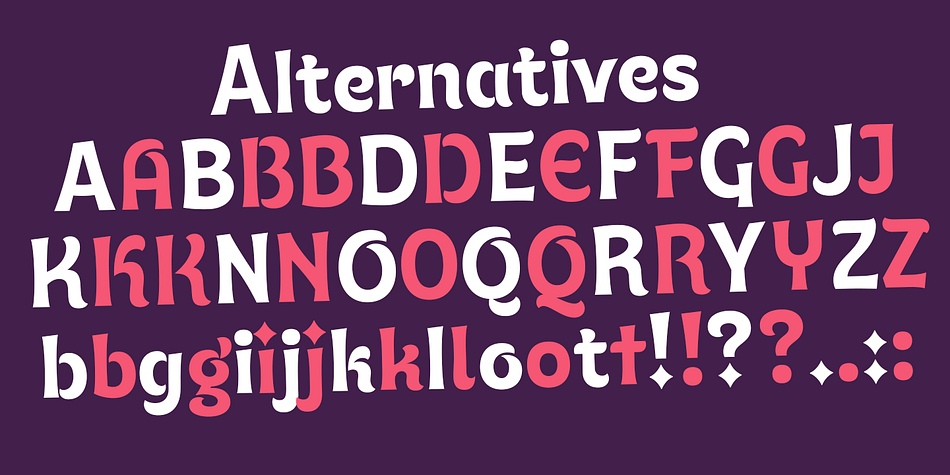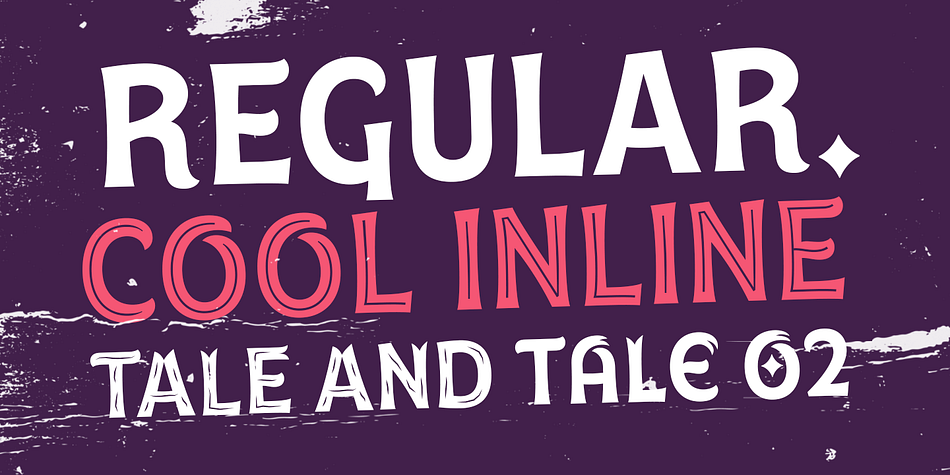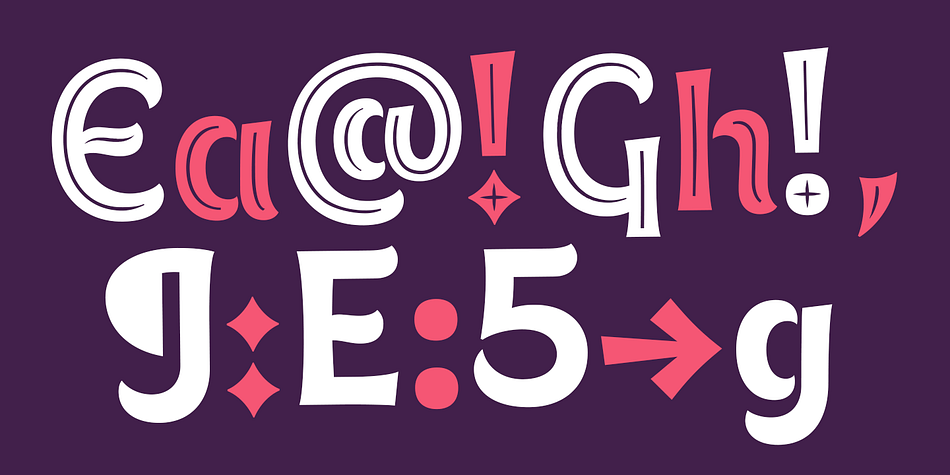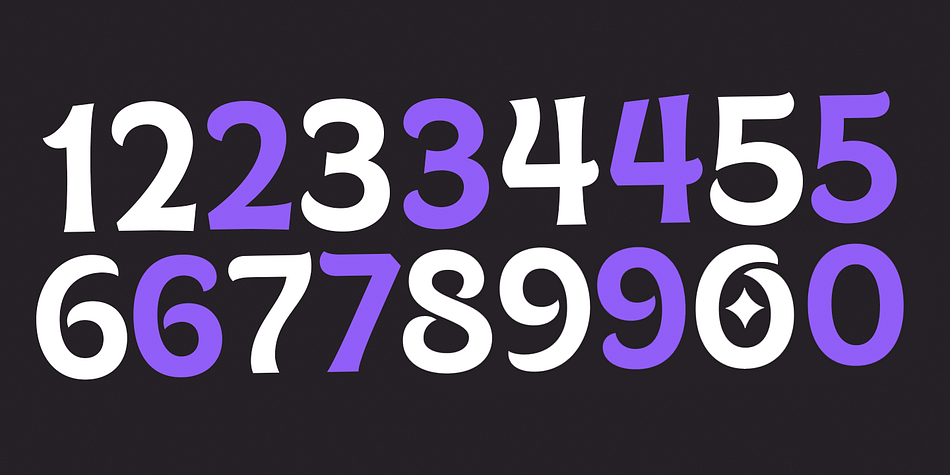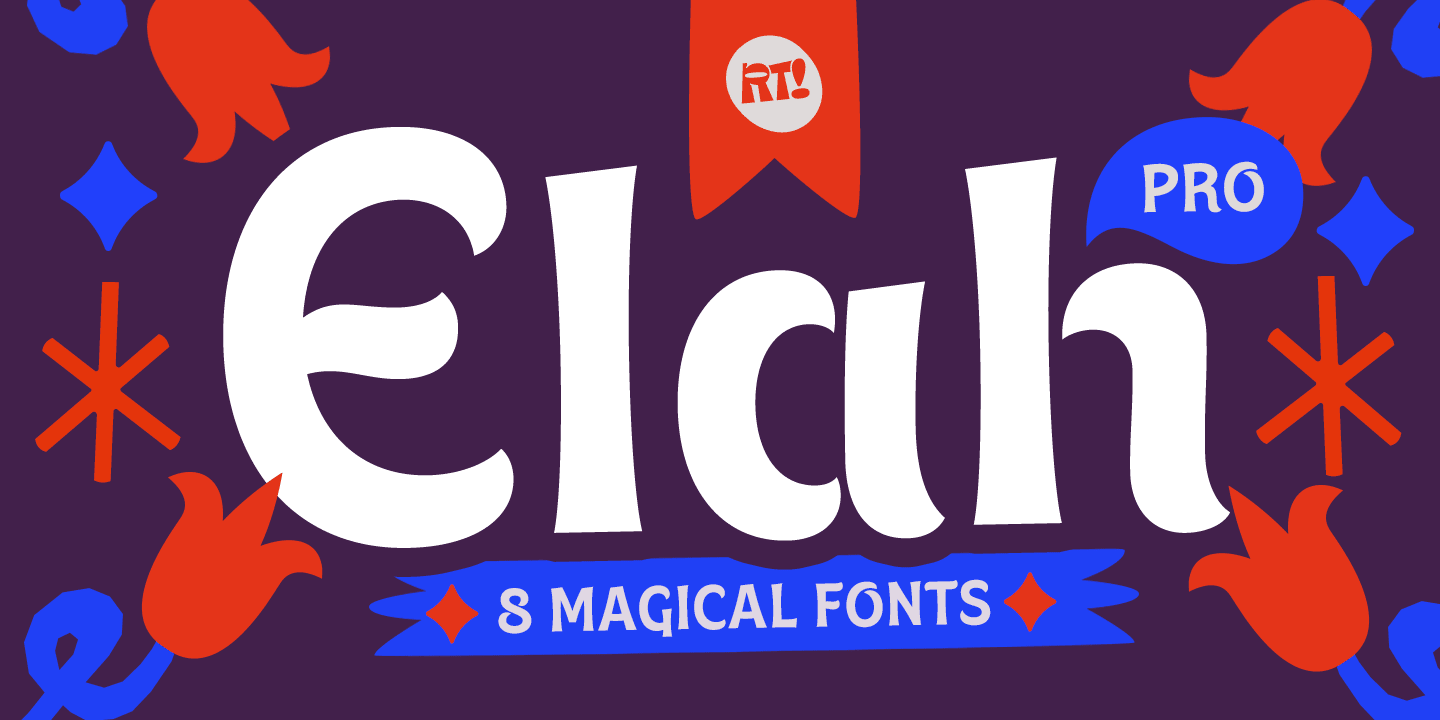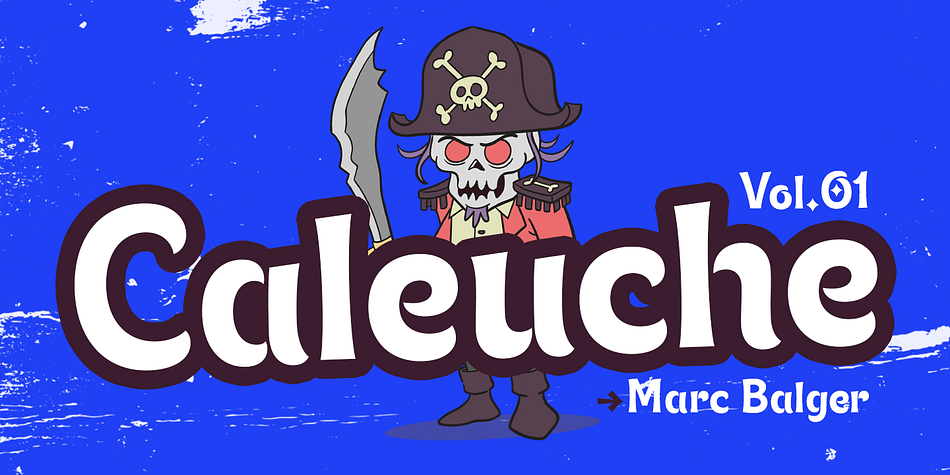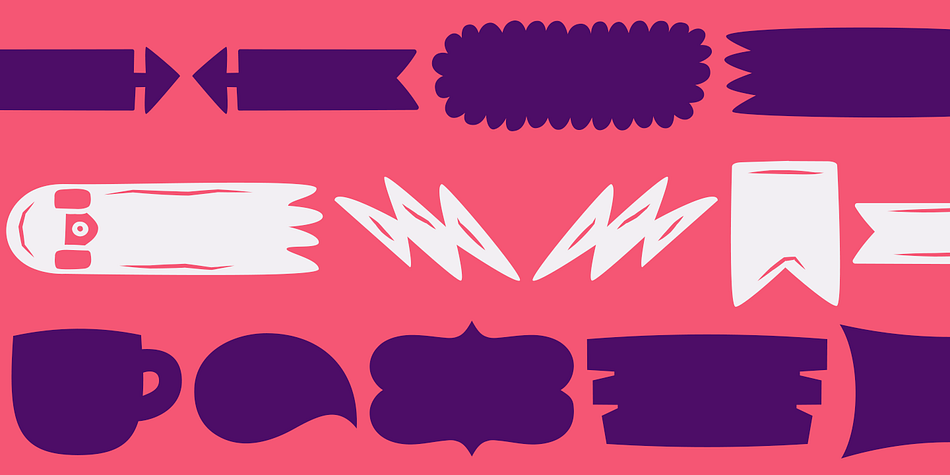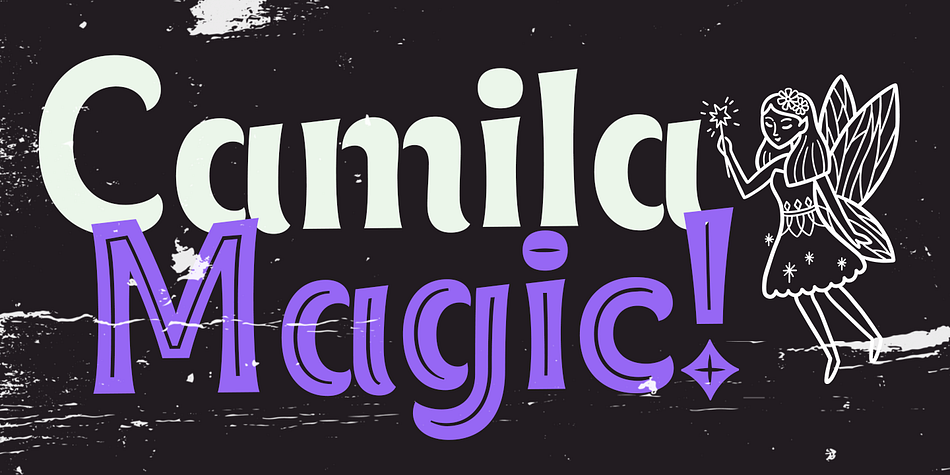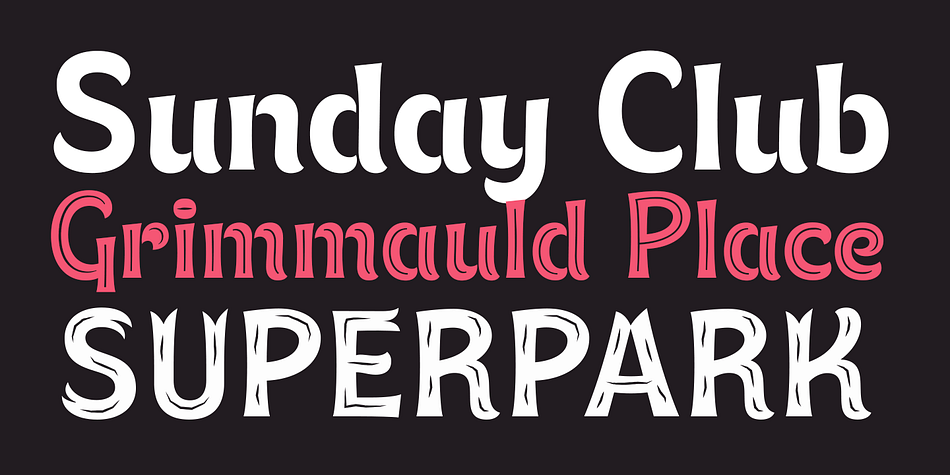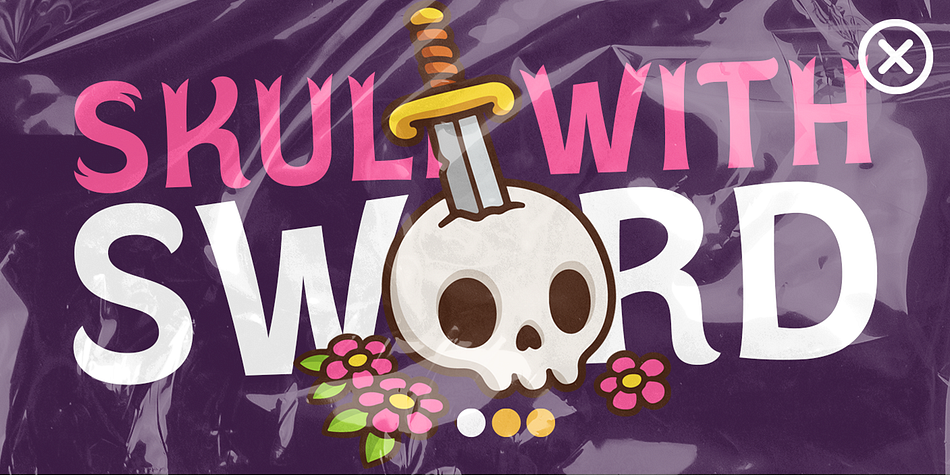
Elah Pro
Designed by Rodrigo Araya Salas, Bruno Jara and Andrey Kudryavtsev, Elah Pro is a multiple classification font family. This typeface has eight styles and was published by Rodrigo Typo.
Elah Pro, An expressive family, special for titles with different Variants and styles, from Regular, Inline, Tales and Dingbtas like Ornaments.
Foundry Rodrigo Typo
Styles Display Sans, Hand Display, Sans Serif, Dingbat
Designers Rodrigo Araya Salas, Bruno Jara, Andrey Kudryavtsev